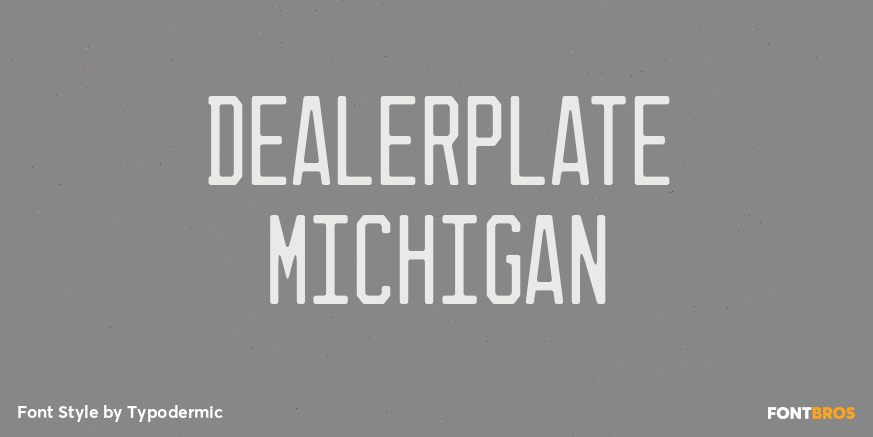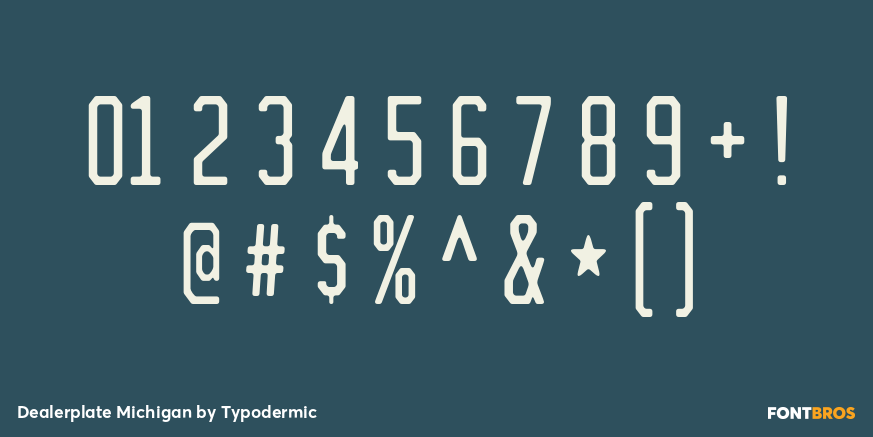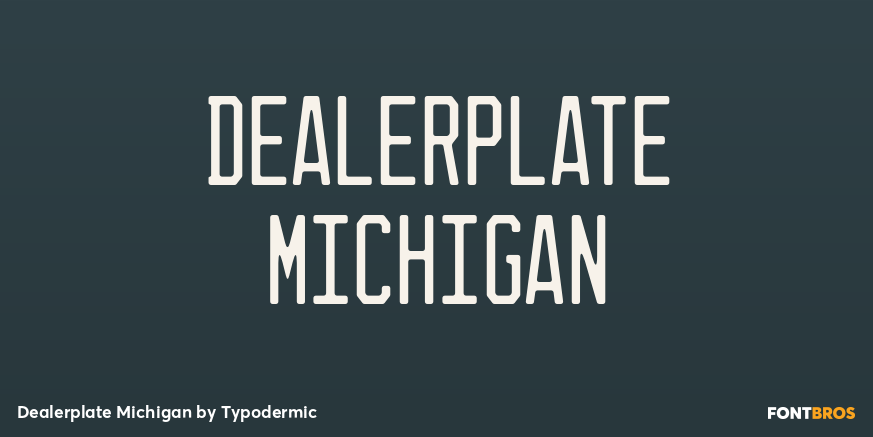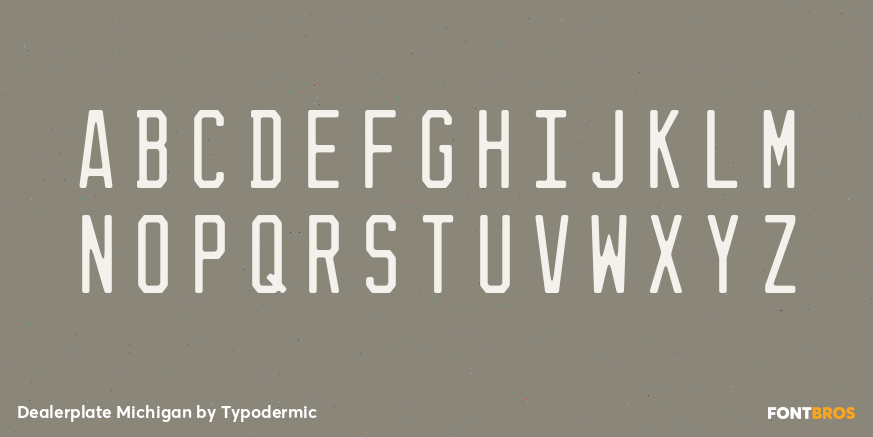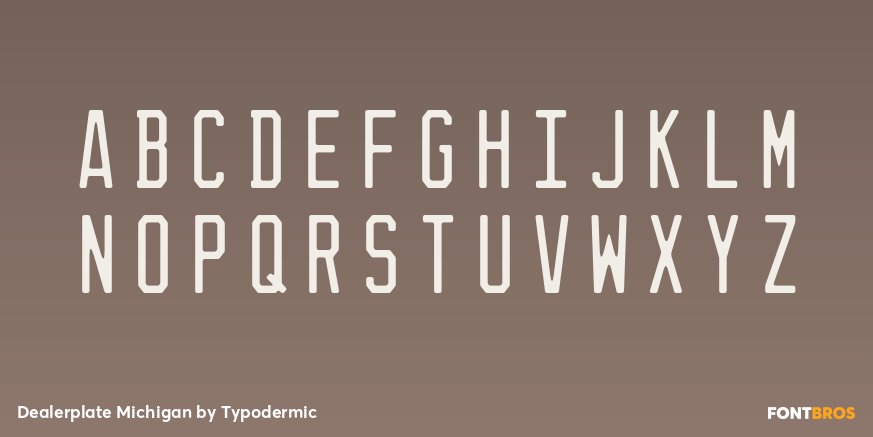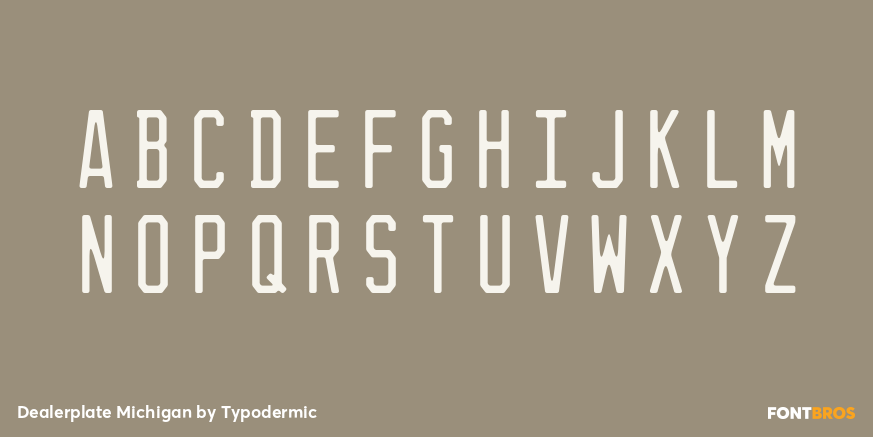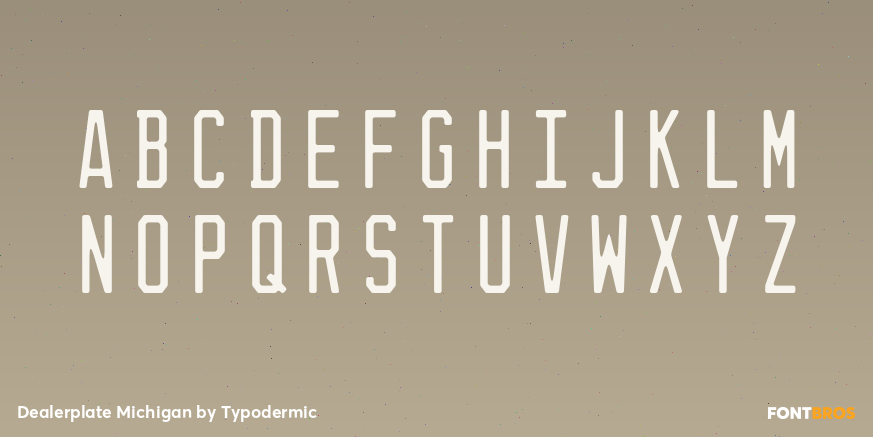
Dealerplate Michigan
Dealerplate Michigan expands Michigan-inspired license-plate lettering into a complete display alphabet. Its regional association is especially useful when vehicle typography needs to support a story about Detroit, manufacturing, motoring history, or Great Lakes travel without being limited to the few letters found on a reference plate.
Use it for automotive documentaries, Detroit-set dramas, factory and museum graphics, driving games, virtual-production traffic, police evidence boards, impound records, parking permits, and fictional registration material. It lets a hero plate coordinate with vehicle menus, provenance displays, garage signage, or case-file captions while maintaining a distinctly Michigan frame of reference.